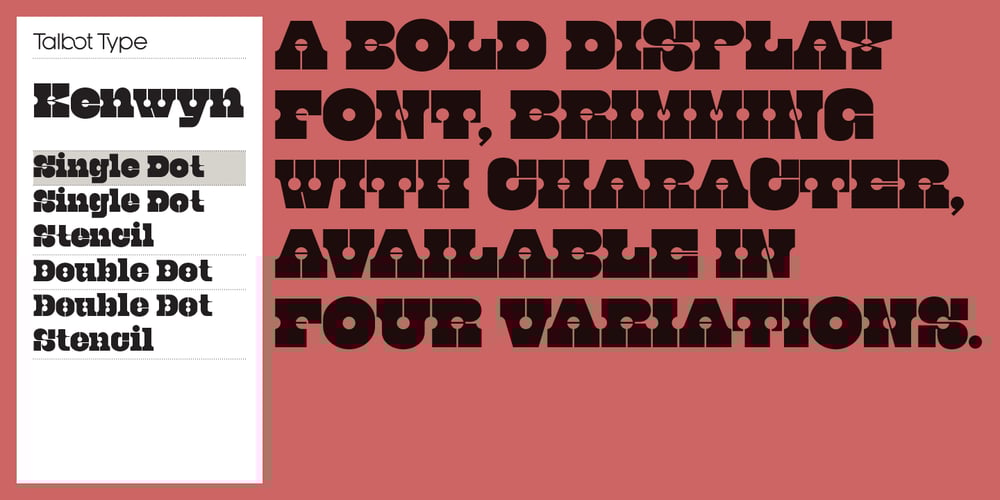
Kenwyn Font Family was designed by Adrian Talbot and published by Talbot Type. Kenwyn contains 8 styles and family package options. Kenwyn is a bold, geometric, Egyptian style slab-serif display font. It comes in two variations — Single Dot and Double Dot — each with an accompanying Stencil variation. Essentially a blend of circles and squares, Single Dot features a circular counter at the centre of each character, while Double Dot uses a lower and upper circle. Although the two variations are similar in principle, the results are visually quite different.